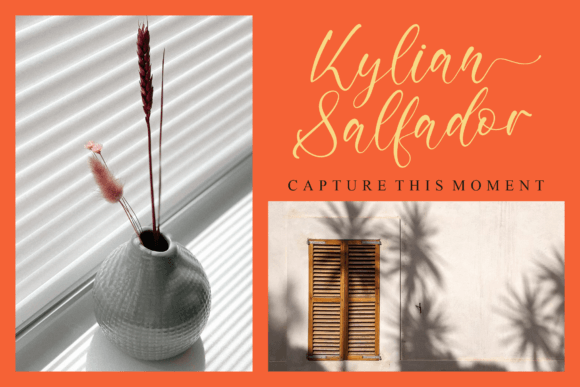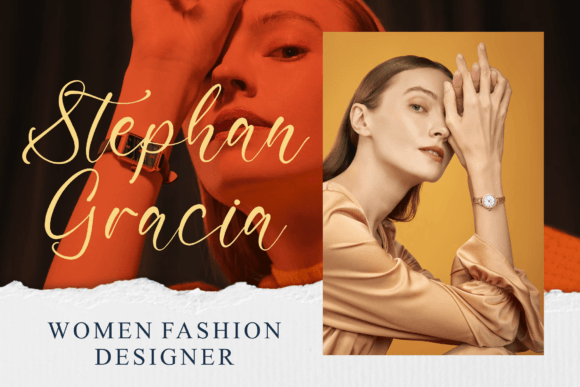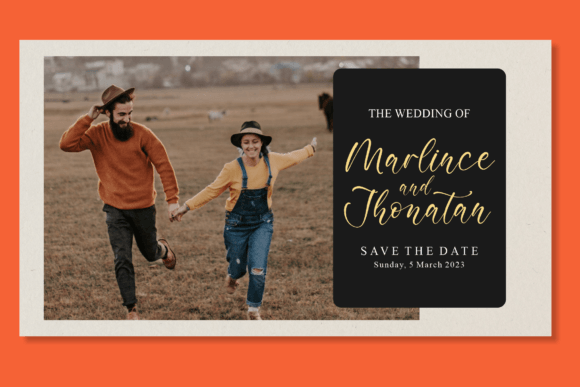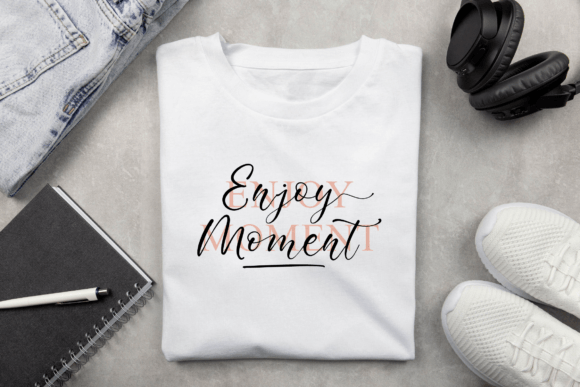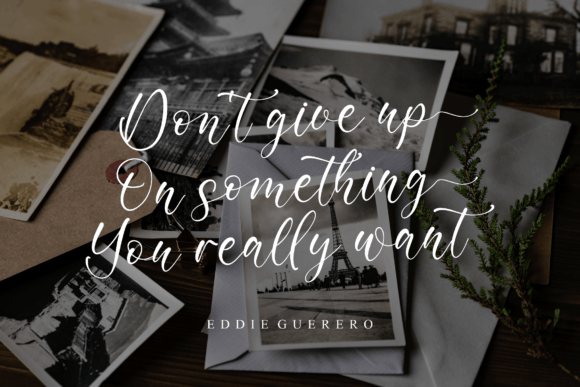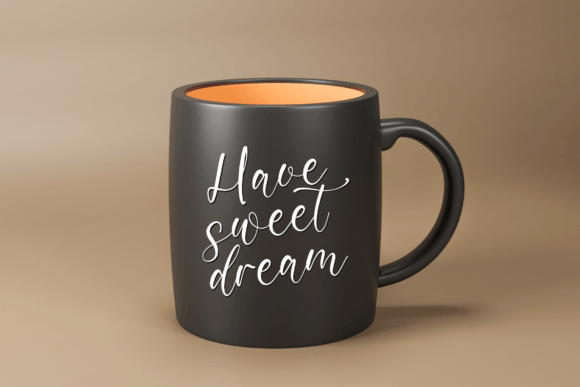
Introduction to Amynda Ramond Font
Amynda Ramond – Beautiful Script Font suitable for any projects such as logos, branding projects, homeware designs, product packaging, mugs, quotes, posters, shopping bags, t-shirts, book covers, name cards, invitation cards, greeting cards, labels, photography, watermark, special events, and all your other lovely projects that need a beautiful script taste.
This font is PUA encoded which means you can access all of the glyphs and swashes with ease .
Key Features of Amynda Ramond Font